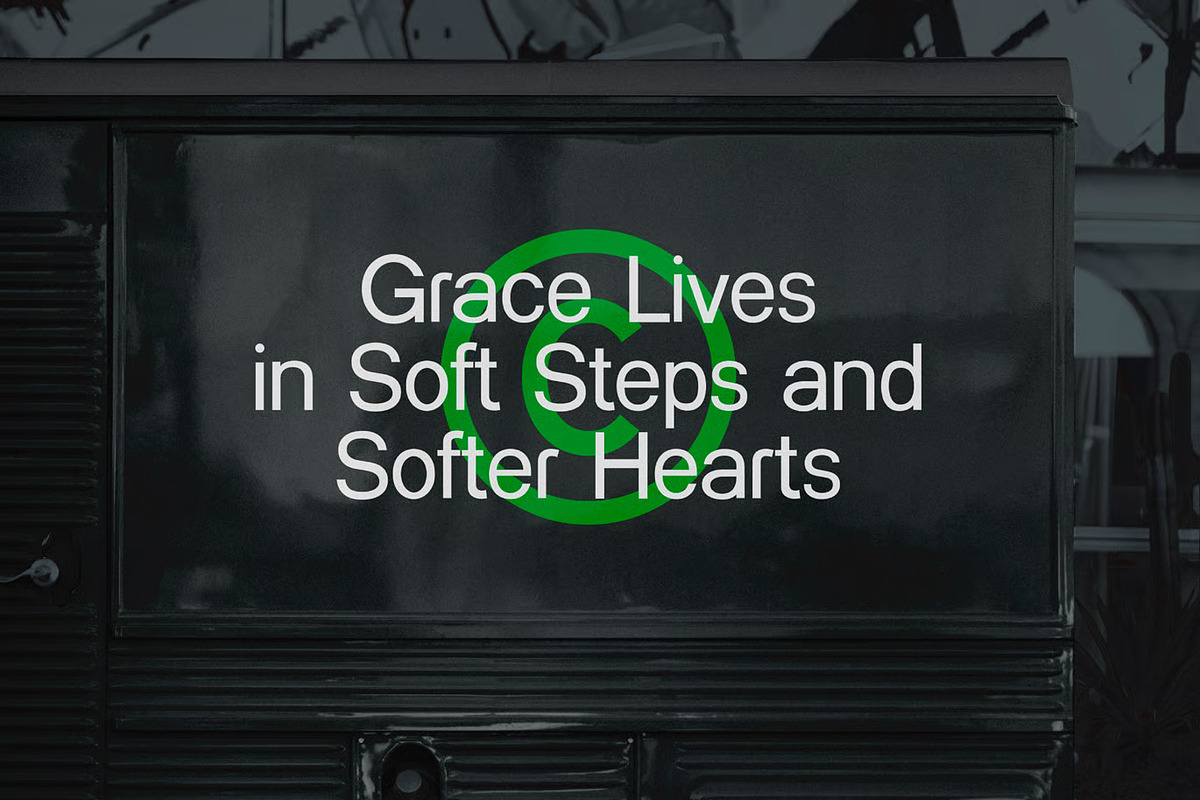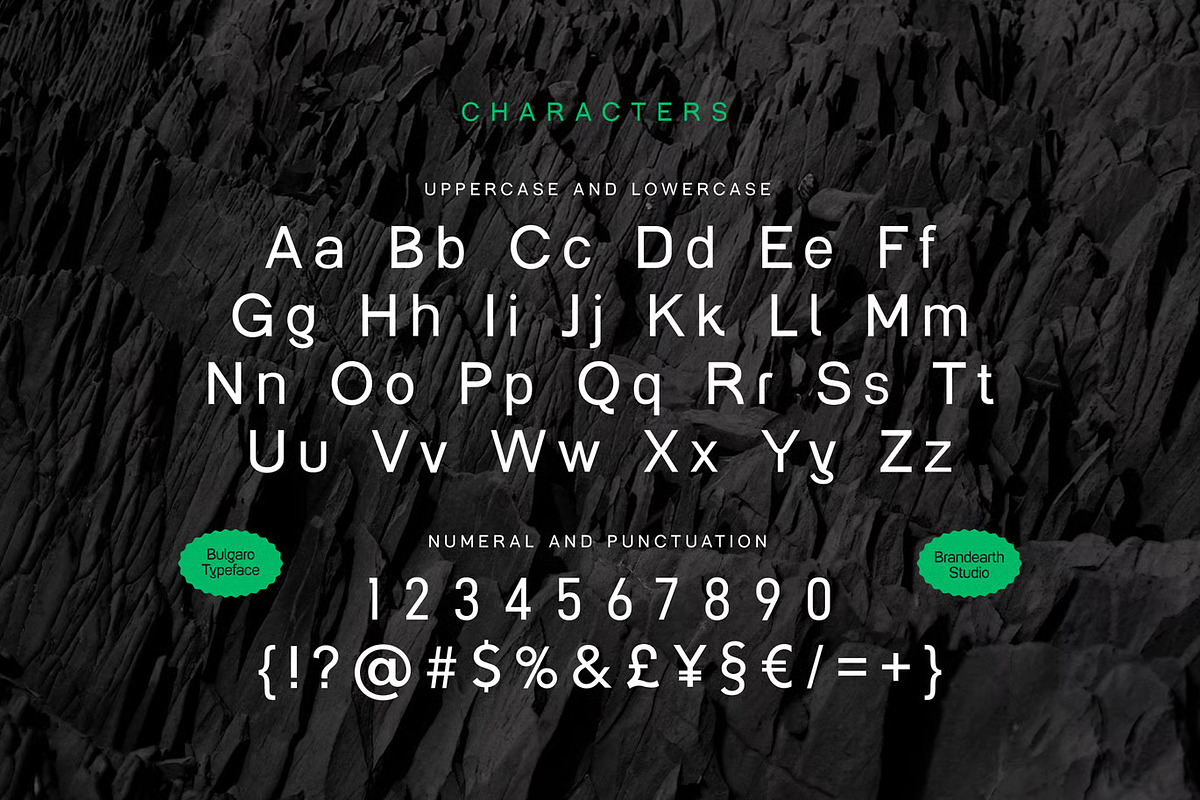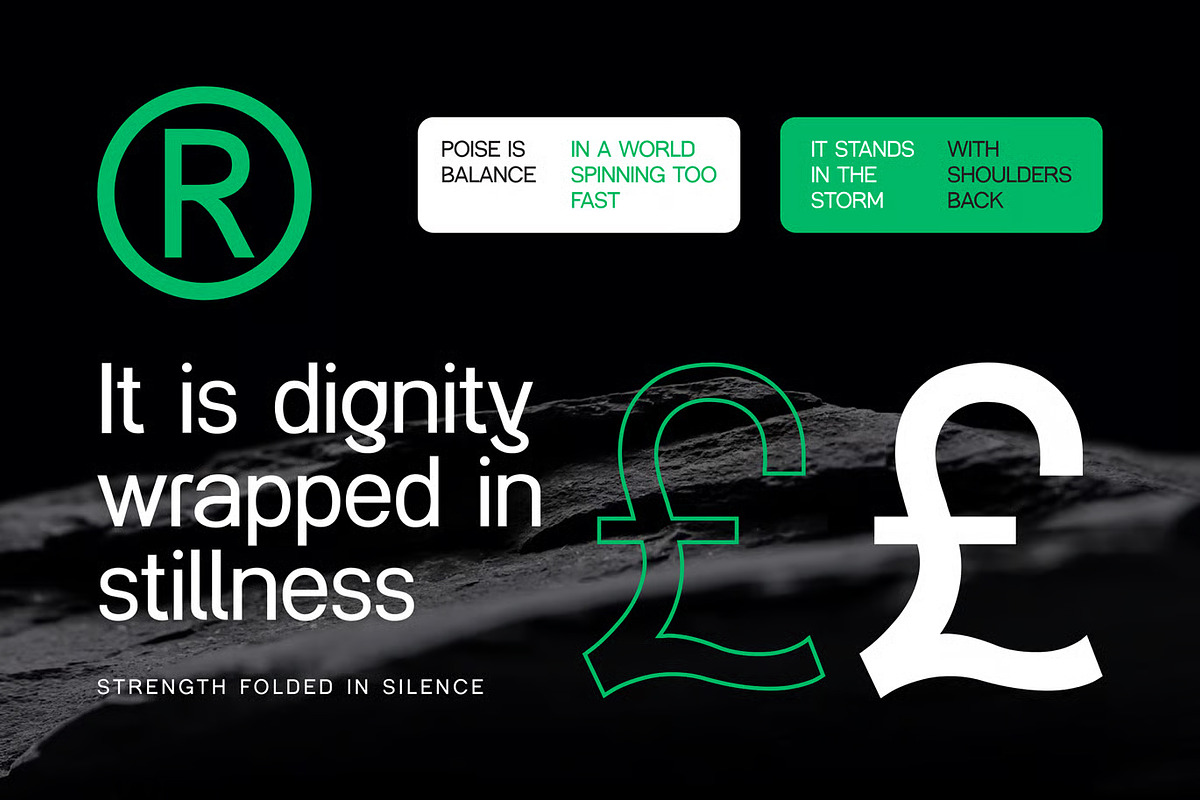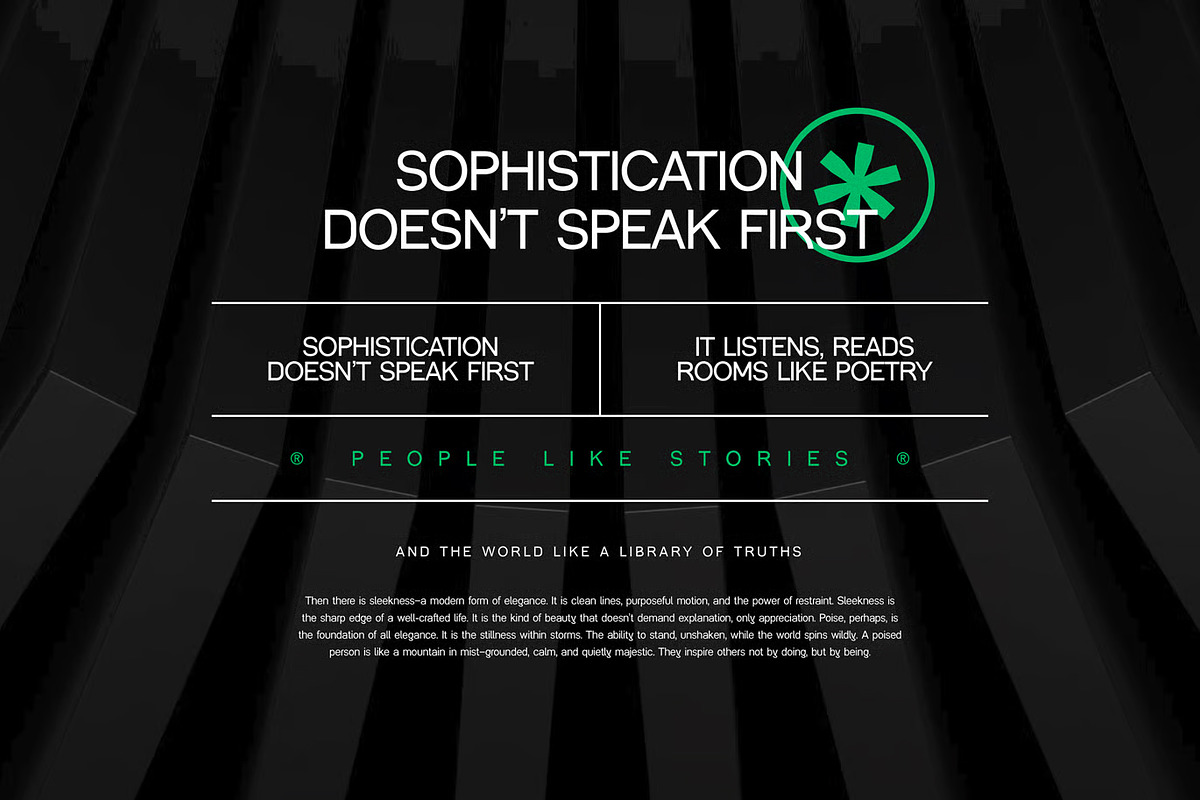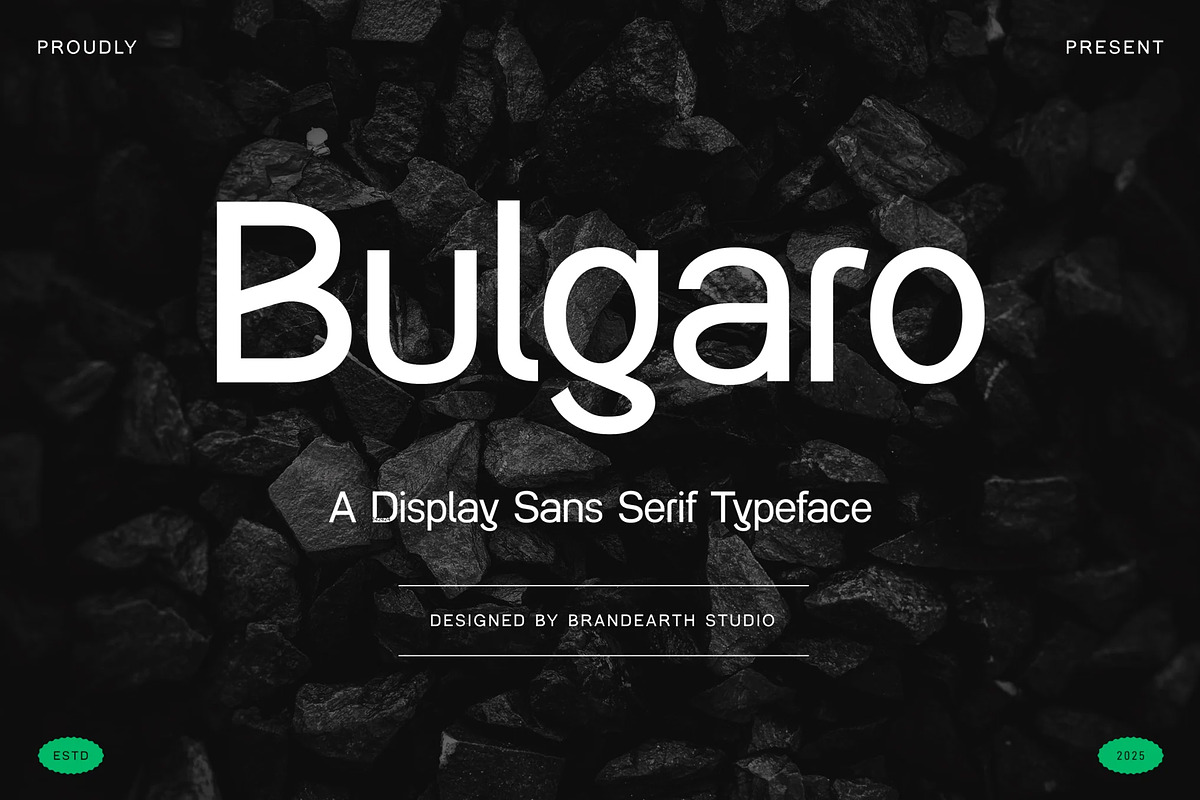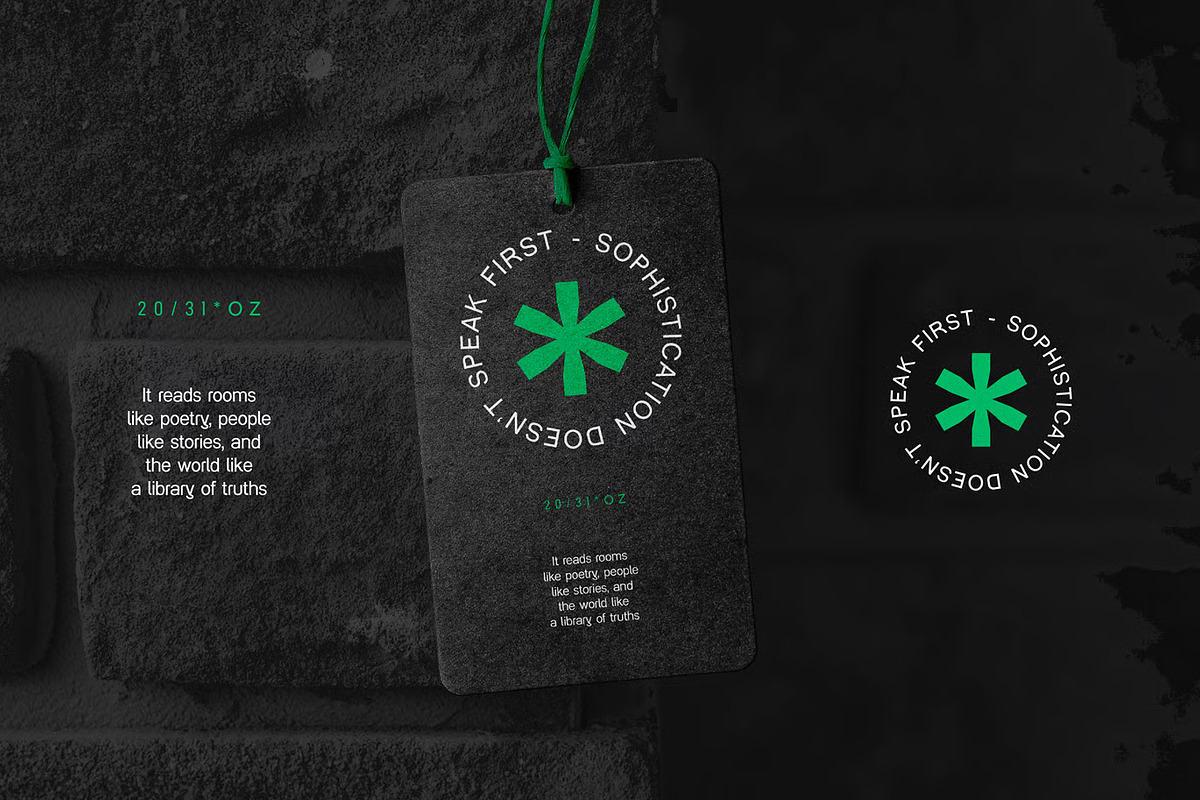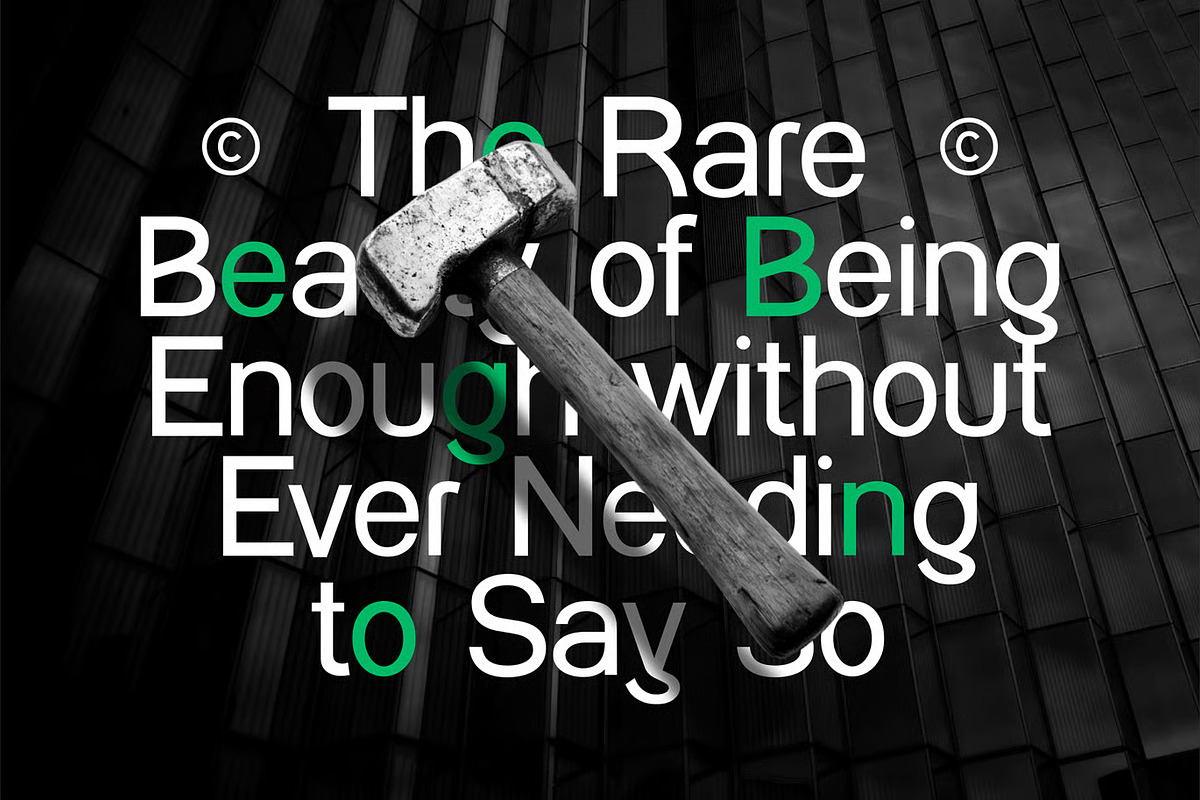
Bulgaro - Modern Display Sans Serif
Bulgaro is a modern display sans serif typeface that embodies refined elegance, clean structure, and understated power. Its aesthetic blends minimalism with a sense of quiet luxury, projecting a tone of clarity, calm confidence, and sophistication.
This typeface is ideal for contemporary brand identities, luxury product packaging, editorial layouts, minimalist advertising, and boutique fashion campaigns. It captures the essence of premium design sensibility while remaining accessible and clear.
Bulgaro shines in contexts that require emotional restraint and refined messaging—like skincare branding, high-end real estate visuals, cultural publications, architectural portfolios, and conscious lifestyle products. It is the silent hero behind brands that speak with intention.
Bulgaro is for brands that understand true sophistication doesn't shout—it speaks in soft, precise steps. This typeface is a quiet force that adds elegance, intelligence, and intention to your design without stealing the spotlight. If your project values beauty in simplicity, Bulgaro is the typographic voice it needs.